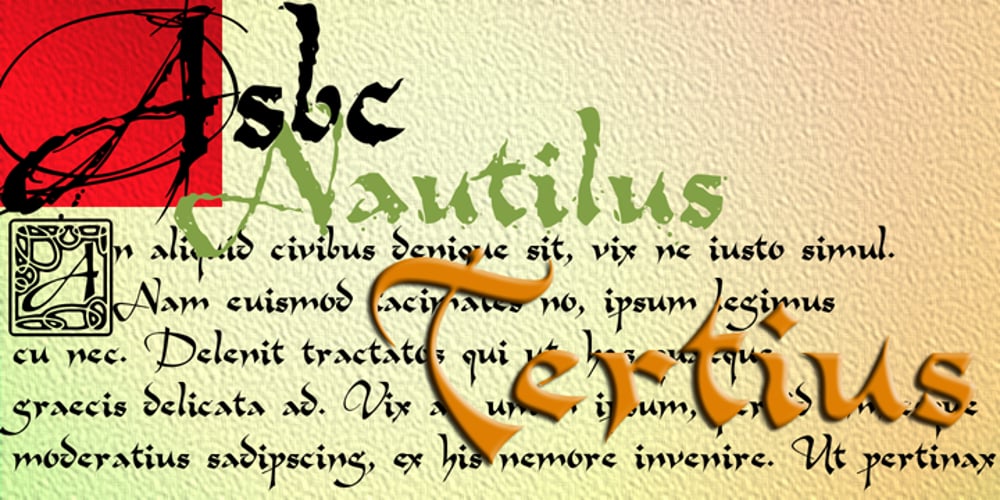
Tertius Font Family was designed by Anton Scholtz, Merle Scholtz and published by Scholtz Fonts. Tertius contains 4 styles and family package options. Tertius, with its high ascenders and clubbed serifs, is a modern interpretation of the classic Carolingian style (7th – 9th centuries AD). There was no capital form in the Carolinian hand and Roman square capitals were originally used with it. The Carolingian hand began, after a while, to develop more cursive tendencies as people looked for a way to speed up the writing process. I have “capitalized” on this trend and have devised an appropriate and dramatic set of flowing capitals for this family. With its elegant swashes and bold letter shapes, Tertius embodies the romance of medieval life, of knights, castles, and chivalry. Tertius comes in four styles:- — Regular: with elegant, smoothly penned characters; — Crenellated: written with a scratchy pen over rough parchment — many drops of ink and blotches have been left on the parchment (“Crenellated” means battlements — the rough protrusions on the top of castle walls); and — Romantic: the capitals have been loosely overwritten generating a contemporary version of illuminated capitals. — Illuminated: richly decorated illuminated capitals for use with Tertius Regular (28 characters) All fonts have been carefully crafted, letterspaced and kerned and contain full character sets of 237 characters.